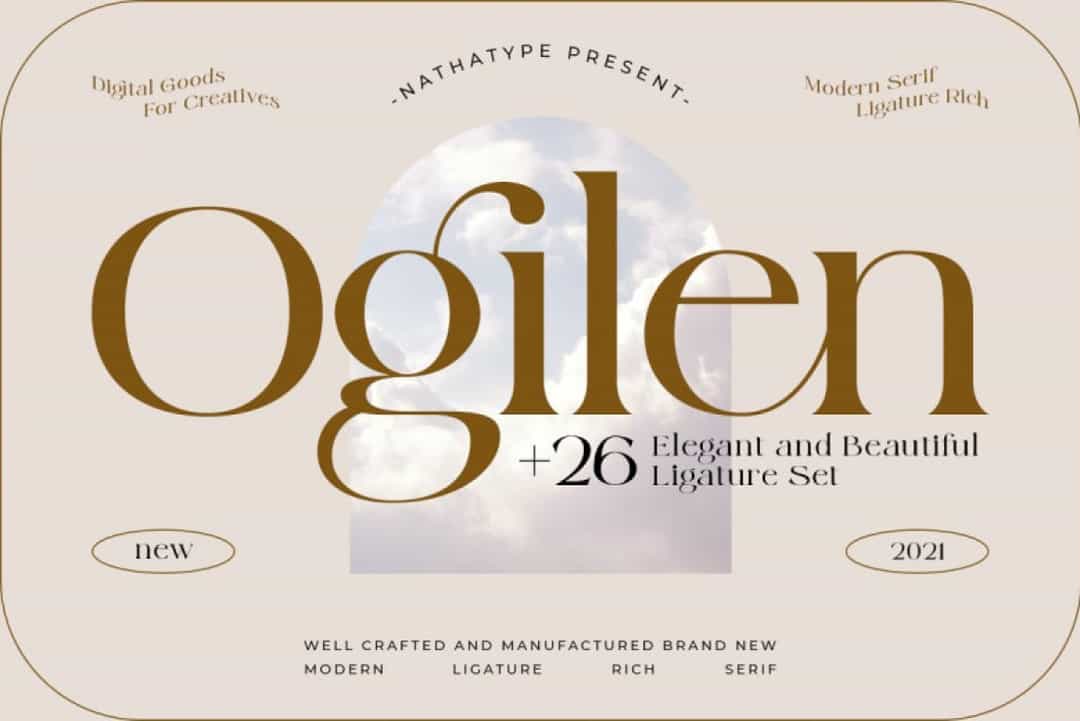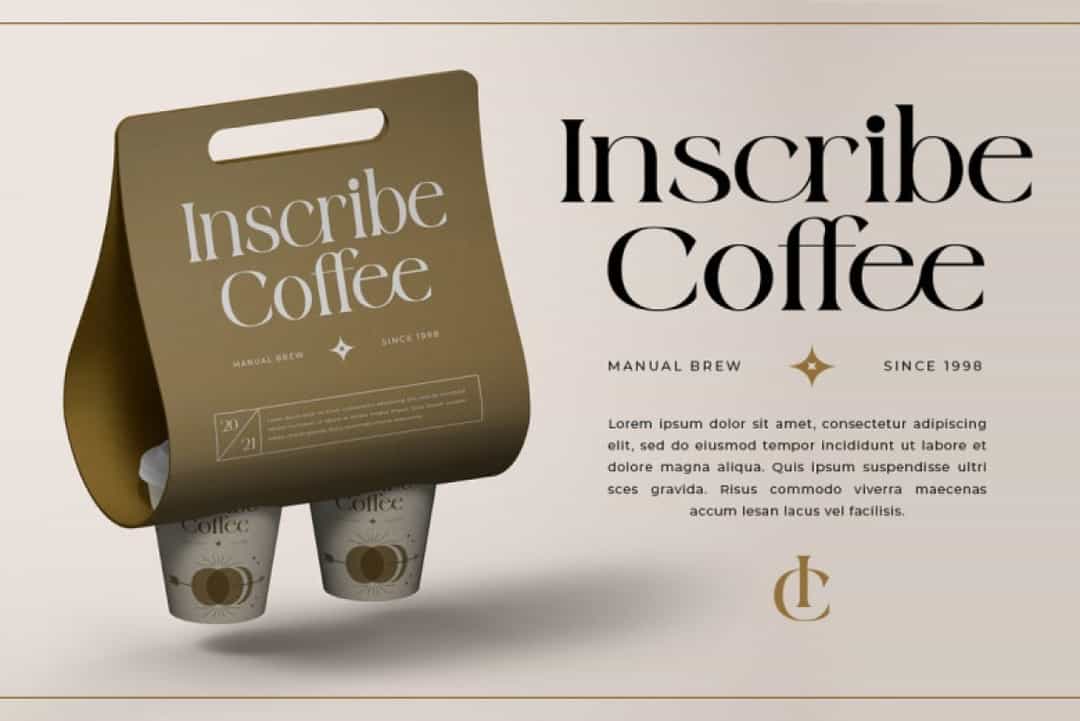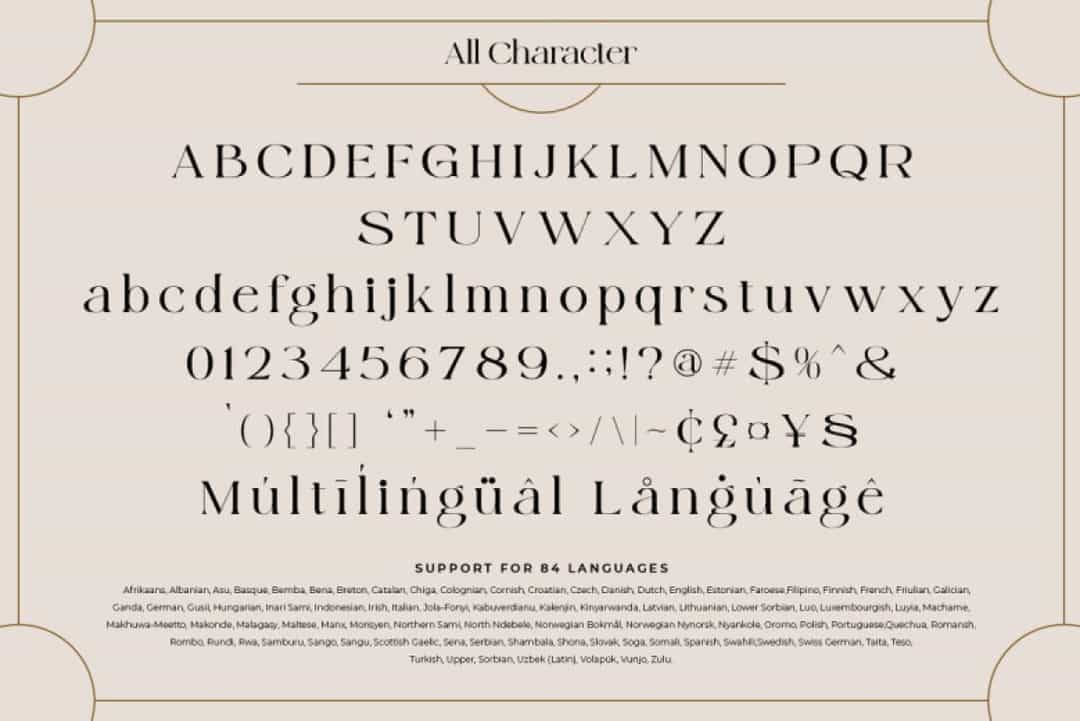
Ogilen is an elegant serif font inspired by current fashions that is perfect for use in all sorts of designs, from logos and headings branding to magazine covers, film covers, book cover designs, apparel invitations, quotes posters flyers greeting cards as well as packaging for products printed with quotes on them.